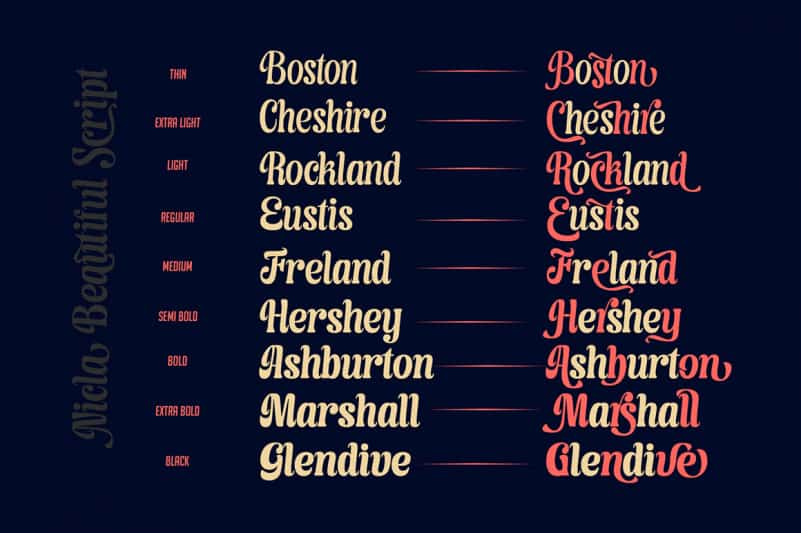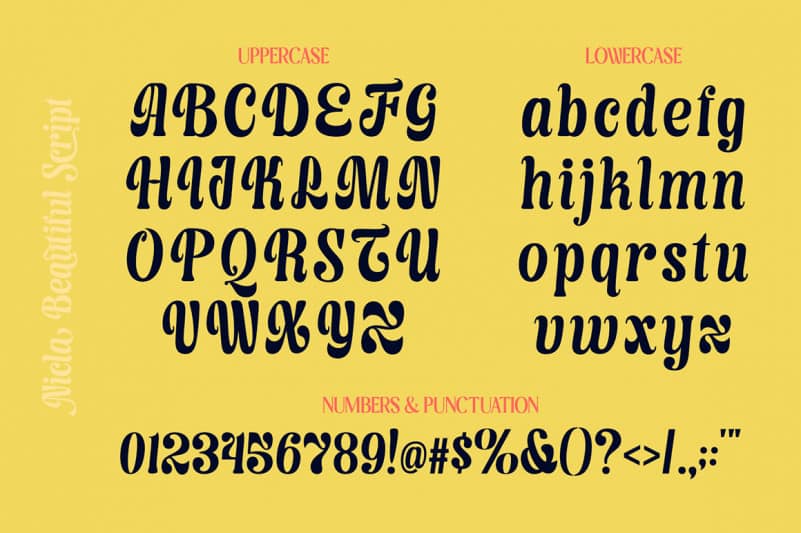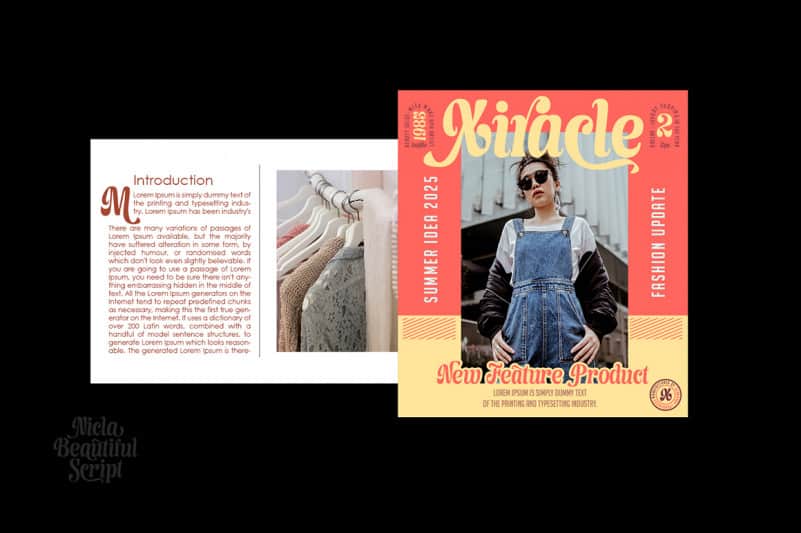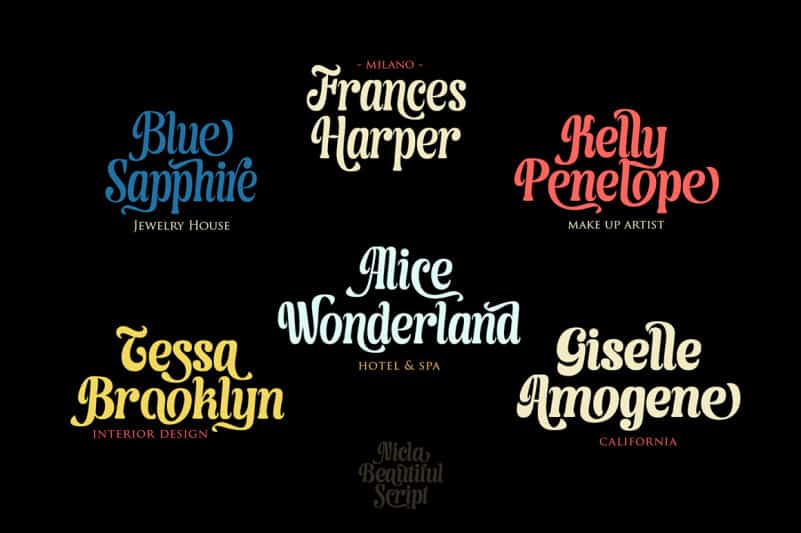
Nicla Script Font is a brand new beautiful script family with beautiful ligatures, much special alternative glyphs to get more stunning and multilingual support. Use this beautiful font for all your designs project, event and more.